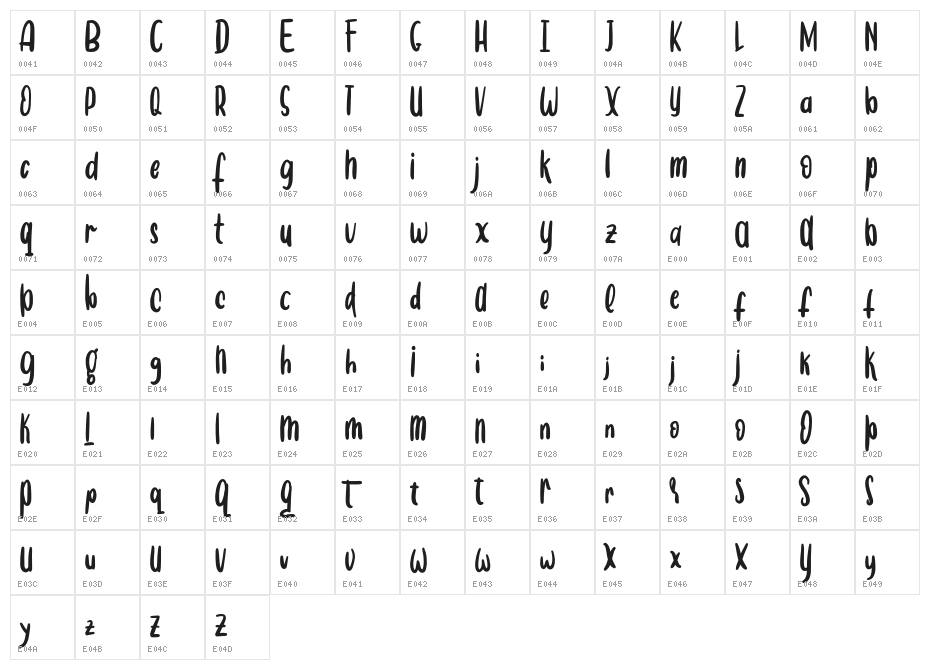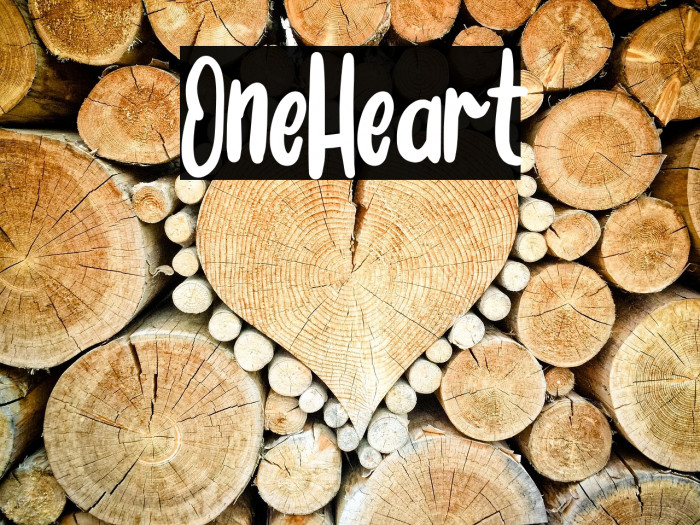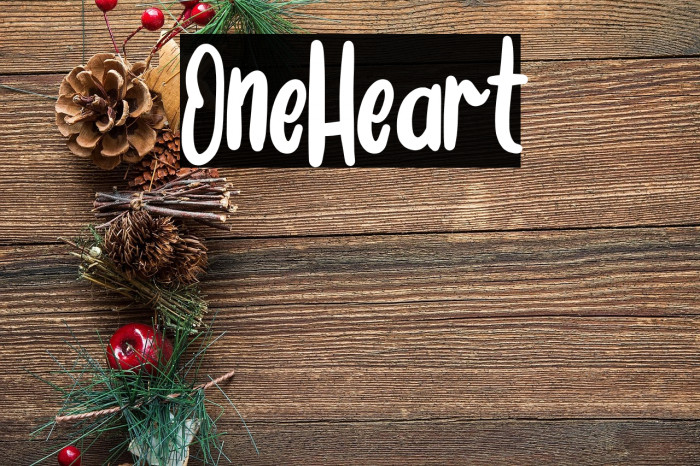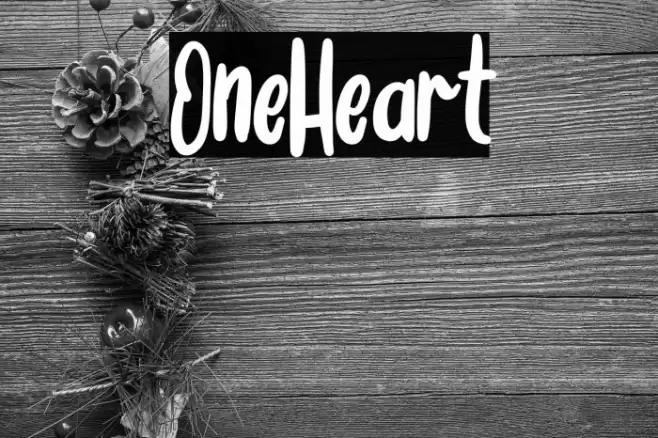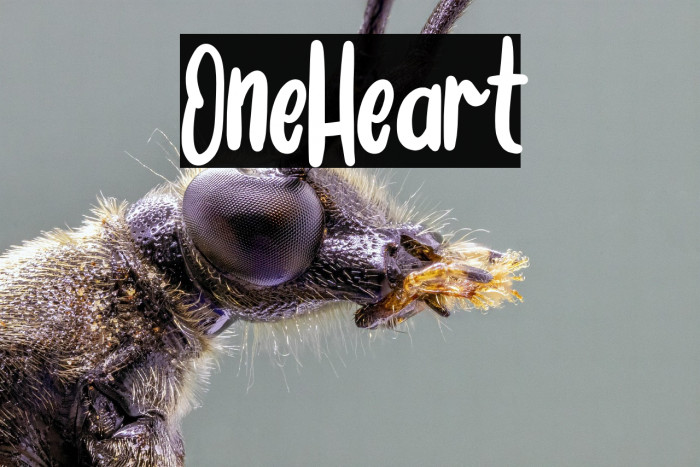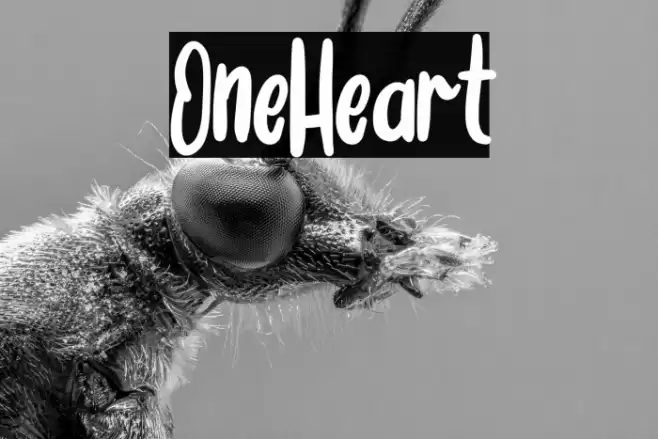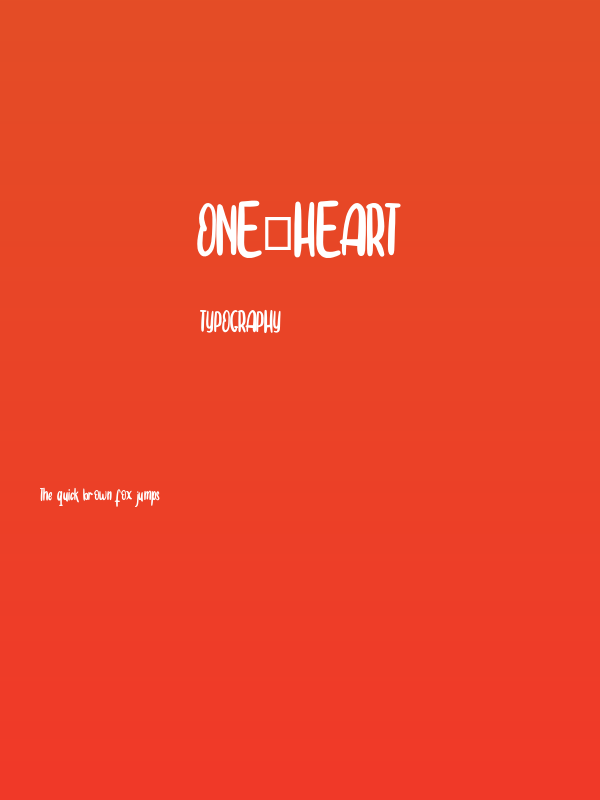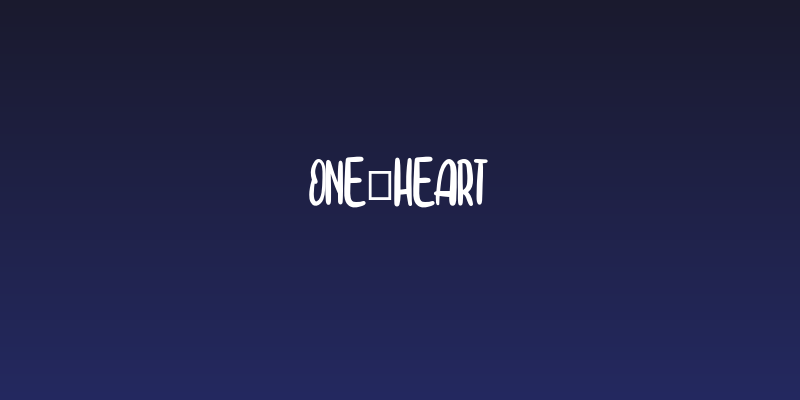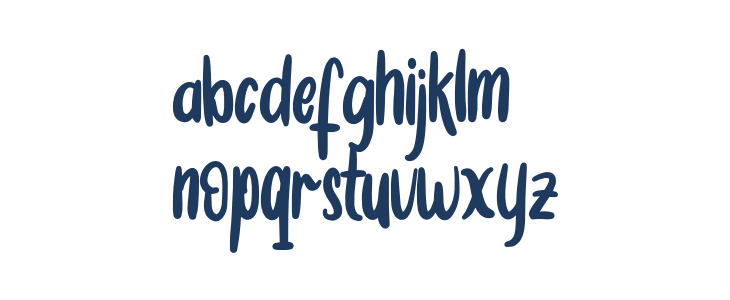
One_Heart Font
One_Heart Description
This font features a playful and bold handwritten style, characterized by its smooth, rounded edges and consistent stroke width. The uppercase letters are tall and slightly narrow, giving a sense of height and elegance, while the lowercase letters maintain a friendly and approachable appearance. The font's overall design is casual yet refined, making it suitable for a variety of creative projects. Its uniform stroke weight ensures readability, and the slightly condensed letterforms add a touch of modernity. The absence of serifs and the fluidity of the lines contribute to its contemporary and informal aesthetic.
| Proposed Projects | Ideal for greeting cards, playful branding, social media graphics, and children's book covers. |